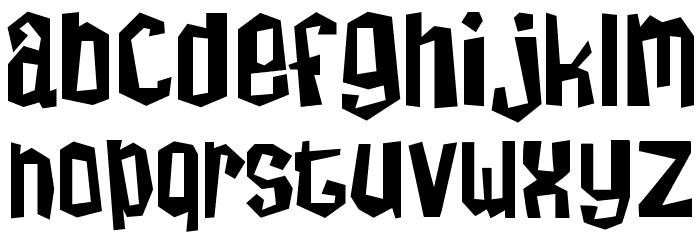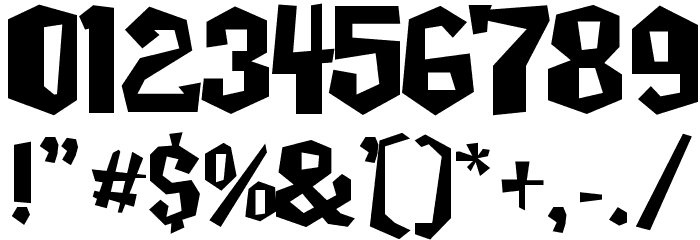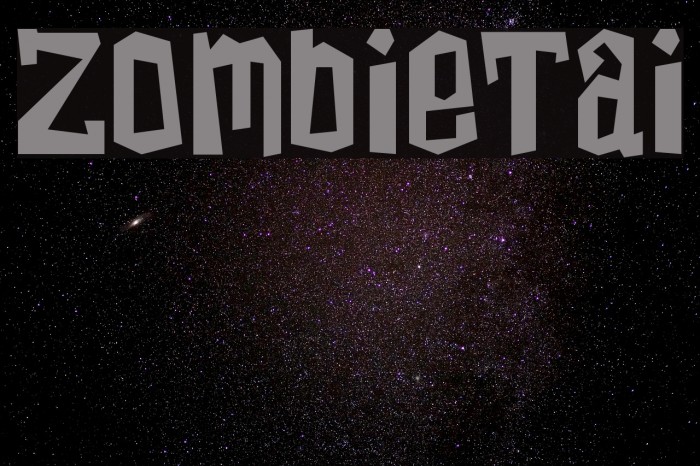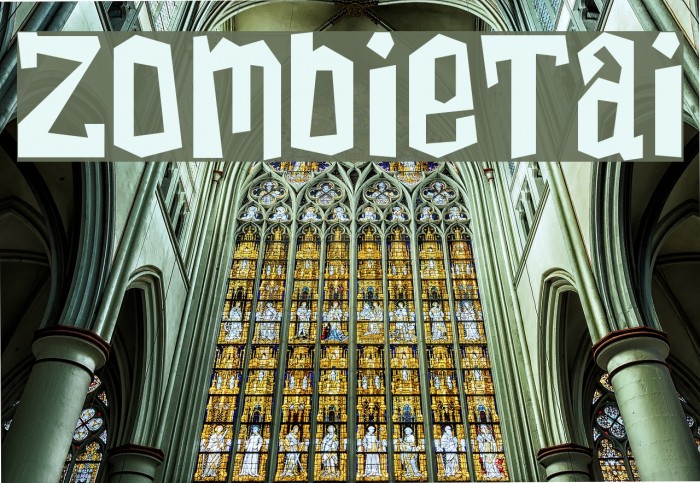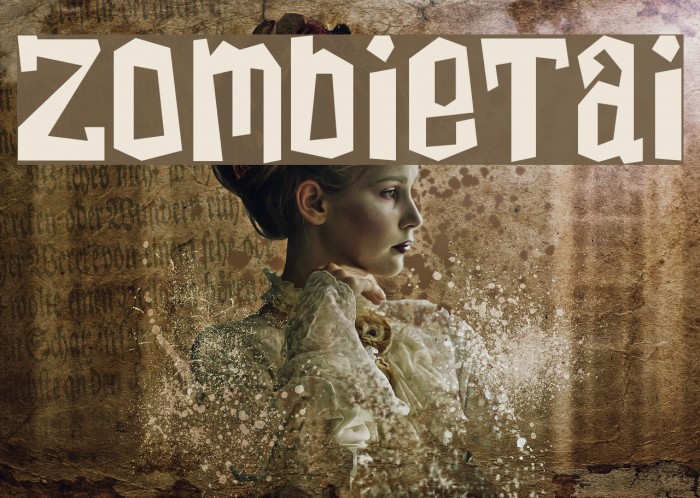
ZombieTai Font
This font features a bold and edgy design with sharp, angular lines that create a sense of movement and energy. The characters are irregular and jagged, giving them a unique, almost hand-cut appearance. This style is reminiscent of horror or thriller themes, making it ideal for projects that require a dramatic and impactful visual statement. The uppercase and lowercase letters maintain a consistent style, while the numbers and special characters complement the overall aesthetic. The font's distinctiveness makes it stand out, perfect for grabbing attention.
A bold, jagged font with an edgy, horror-inspired style.
- Proposed Projects: Ideal for horror movie posters, Halloween event flyers, video game titles, and edgy branding.